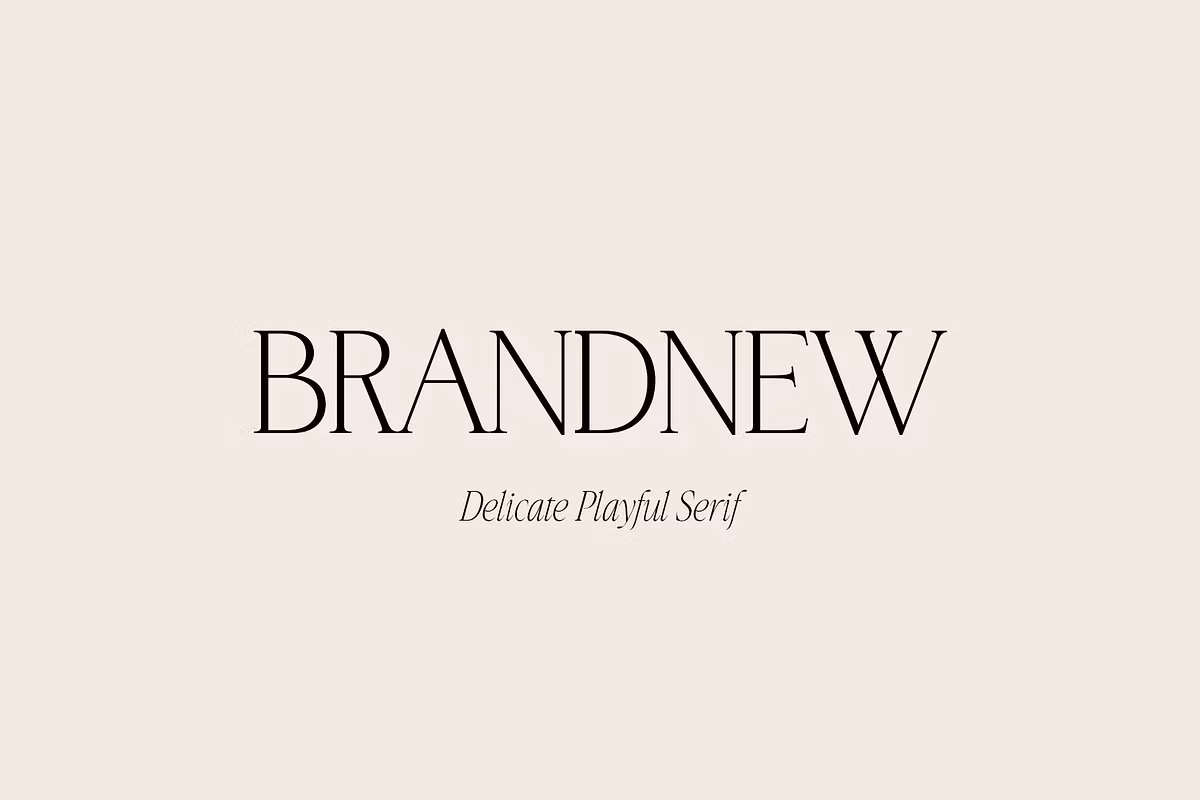
The BrandNew Delicate Playful Serif Font Free Download is a charming and elegant serif typeface that brings a light, whimsical touch to any design. Perfect for branding, logos, editorial design, invitations, and children's content, this font combines playful letterforms with delicate, refined serifs to create a fun yet sophisticated vibe.
With its unique, modern take on a classic serif style, BrandNew adds personality and flair to your typography. It includes uppercase and lowercase letters, numbers, punctuation, and multilingual support, ensuring it's suitable for a variety of creative applications.